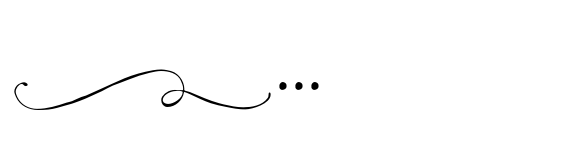
High Hopes
by Ana's Fonts
The High Hopes Font Family was designed by Ana Parracho and published by Ana's Fonts. High Hopes contains 3 styles and family package options. More about this family
High Hopes is a quirky handmade serif font with variations that show up "randomly" through contextual alternates, true italics and ornaments. Use this font in designs such as postcards and notes, posters, logotypes, social media posts, branding and packaging.
High Hopes includes:
• Regular font with three contextual alternates for each letter
• Italic font with three contextual alternates for each letter
• Ornaments font with swashes and frames
Designers: Ana Parracho
Foundry: Ana's Fonts